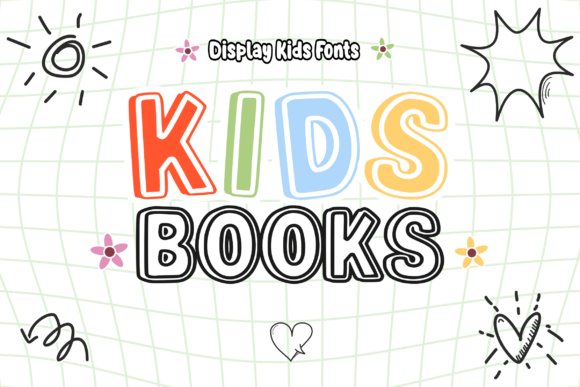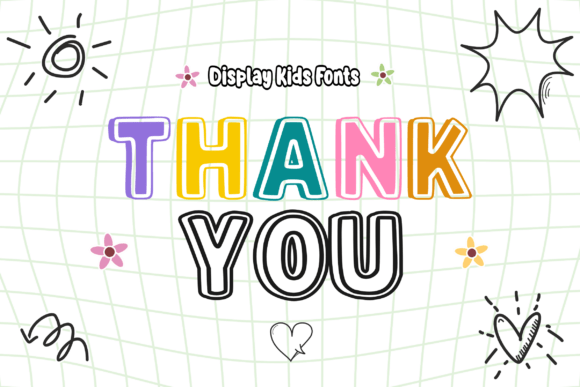
Introducing “Drawing Children” – A Whimsical Font for Creative Designs
Are you a designer, crafter, or DIY enthusiast looking for a font that can add a touch of playfulness and charm to your projects? Look no further than “Drawing Children”, a modern children’s display font that’s perfect for a wide range of creative applications. In this article, we’ll explore the features and benefits of this delightful font, and show you how it can elevate your designs to the next level.
A Cute and Recognizable Font for Kids
“Drawing Children” is a carefully crafted font that’s designed to be both cute and easy to recognize. Each character is meticulously drawn to bring a sense of joy and wonder to your designs. The font’s playful and whimsical style makes it perfect for use in children’s books, animations, comic titles, and more. Whether you’re creating a logo, a poster, or a social media graphic, “Drawing Children” is sure to delight your audience.
Perfect for Sublimation Design
One of the key benefits of “Drawing Children” is its versatility. The font is ideal for sublimation design, which means it can be used to create stunning designs on a wide range of products, including t-shirts, mugs, tote bags, and more. The font’s bold and playful style ensures that your designs will stand out, making it perfect for crafters and makers who want to create unique and eye-catching products.
The possibilities are endless when it comes to using “Drawing Children” in your designs. Here are just a few ideas to get you started:
- T-shirts and apparel: Create custom t-shirts, hoodies, and other apparel with fun and playful designs that kids will love.
- Mugs and ceramics: Add a touch of whimsy to mugs, plates, and other ceramics with custom designs that make great gifts.
- Tote bags and accessories: Design colorful tote bags, stickers, and other accessories that are perfect for kids and adults alike.
- Animations and comics: Use “Drawing Children” to create engaging animations, comic titles, and other digital content that kids will adore.
Why Choose “Drawing Children”?
So why choose “Drawing Children” over other fonts? Here are just a few reasons:
- Unique and playful style: “Drawing Children” has a one-of-a-kind style that’s sure to stand out in any design.
- Easily recognizable: The font’s bold and playful characters make it easy for kids and adults alike to recognize and read.
- Versatile: “Drawing Children” can be used in a wide range of creative applications, from sublimation design to digital content.
Get Creative with “Drawing Children”